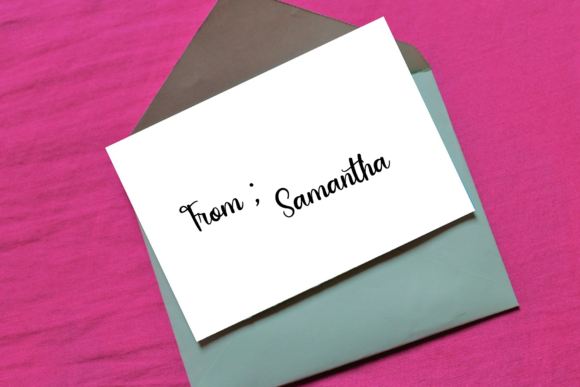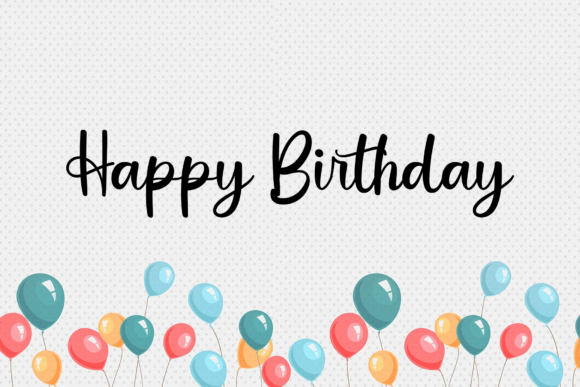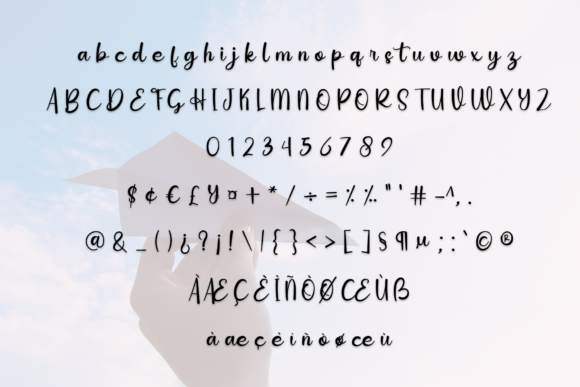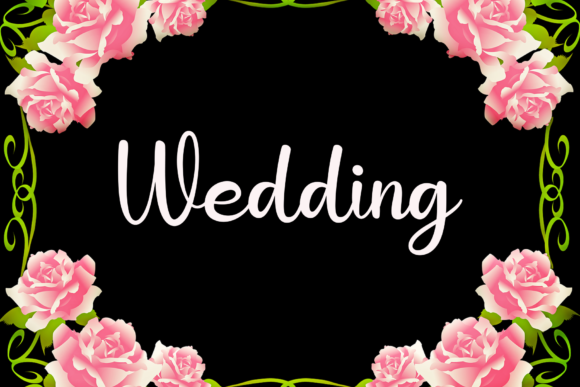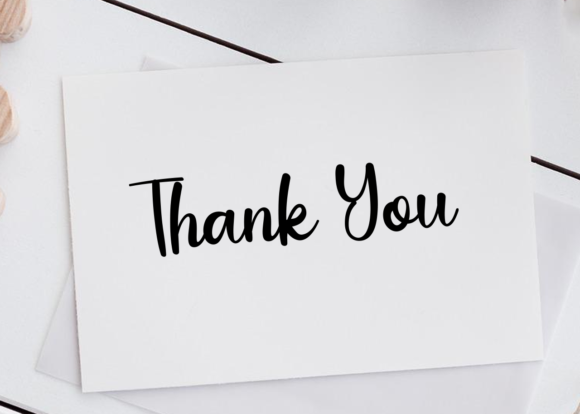
The Sweet Spot: Discovering the Charm of Chocolate Font
I’ll never forget the time I was working on a project for a client’s wedding invitation. I had the design concept nailed, but I just couldn’t find the perfect font to bring it all together. That’s when I stumbled upon Chocolate Font, a unique, round lettered handwritten font that instantly captured the whimsical and romantic feel of the occasion. In this article, I’ll share my experience with Chocolate Font, its features, and how to make the most of it in your designs.
- ✅ Unique and eye-catching design that’s perfect for titles, invitations, and letters
- ✅ Supports OpenType features, glyphs, and stylistic alternates for added versatility
- ✅ Works beautifully for both digital and print designs
The Not-So-Perfect Aspects 🤔
- ⚠️ Limited character set, which may not be suitable for body text or extensive writing
- ⚠️ May not be the best choice for very formal or traditional designs
The Story Behind Chocolate Font
Chocolate Font was crafted with love by a talented type designer who wanted to create a unique and eye-catching font for creative projects. Inspired by the whimsy of handwritten letters and the elegance of calligraphy, Chocolate Font was born. Its rounded letters and playful feel make it perfect for a variety of designs, from wedding invitations to social media graphics.
Q: What type of designs is Chocolate Font best suited for?
A: Chocolate Font is ideal for titles, invitations, letters, and other creative projects where a personal touch is desired.
Q: Is Chocolate Font suitable for body text?
A: While Chocolate Font is highly legible, its limited character set and unique design make it better suited for headings and titles rather than extensive body text.